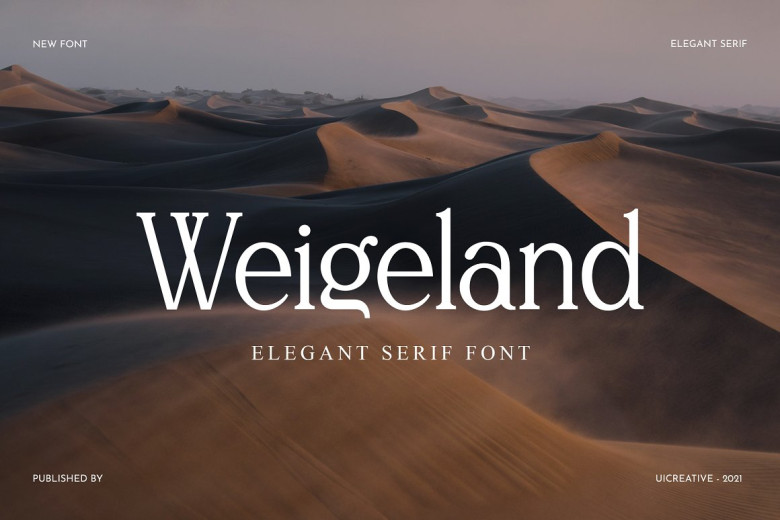
Weigeland Font
Weigeland serif font is our latest offering – it is a modern serif font with an elegant aesthetic, making it suitable for many different projects such as magazine covers, book covers, website headers and clothing design. Furthermore, its versatility extends to branding projects as well as packaging design applications, packaging design or editorial projects that display both masculine and feminine characteristics.
Weigeland Serif Font